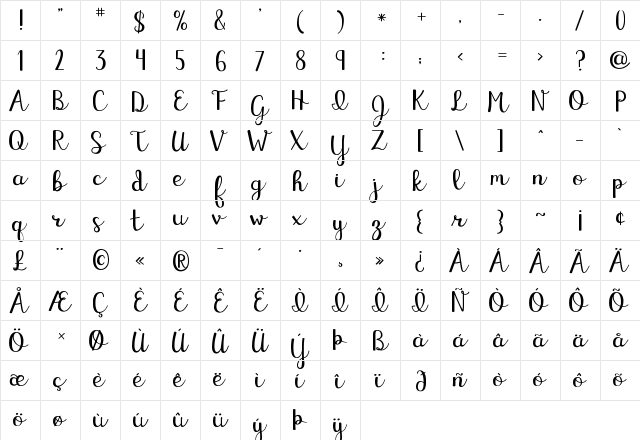
KG Eliza Schuyler Script Regular
| Foundry | Kimberly Geswein |
| Designer | Kimberly Geswein |
Design Context for KG Eliza Schuyler Script Typeface
KG Eliza Schuyler Script brings a calligraphic fluidity to the page — its connecting strokes and expressive curves give it an unmistakably human quality.
Font Pairing: Combine KG Eliza Schuyler Script with a simple geometric sans for maximum contrast — the tension between flowing curves and clean structure is a classic typographic pairing.
Pro Tip: Pair KG Eliza Schuyler Script with a clean sans-serif for supporting text. The contrast between fluid script and geometric structure creates an elegant typographic hierarchy.